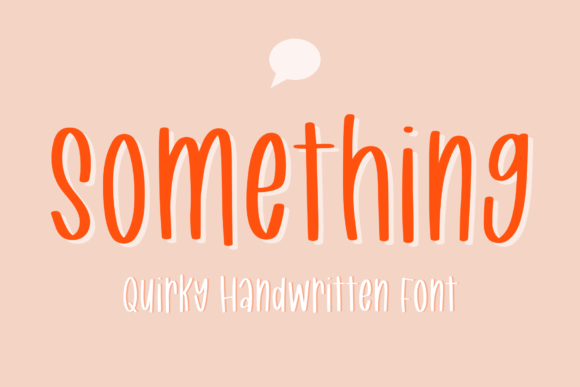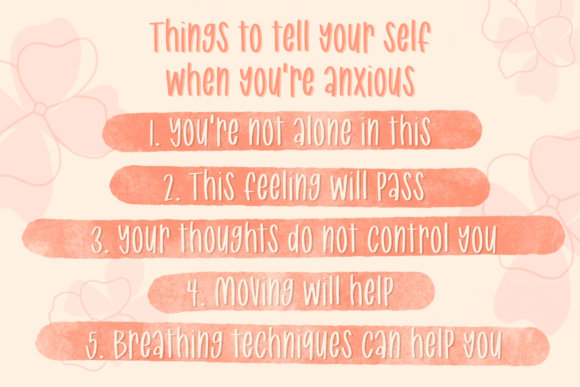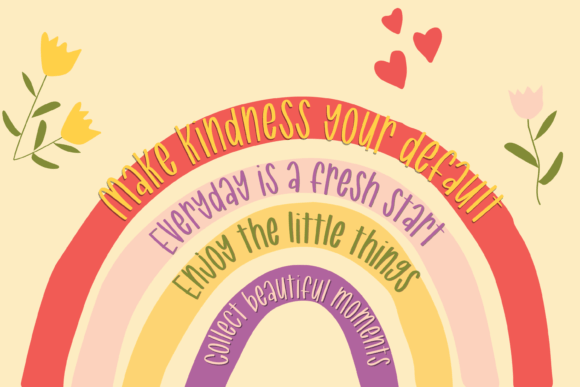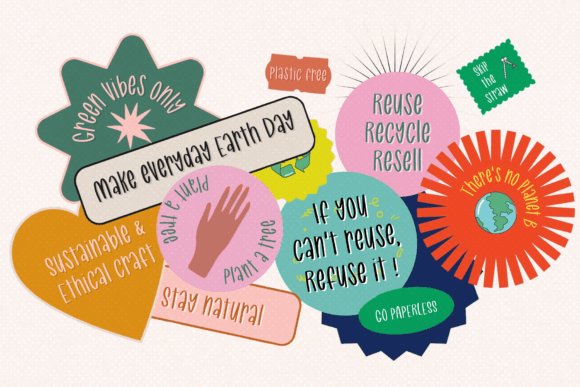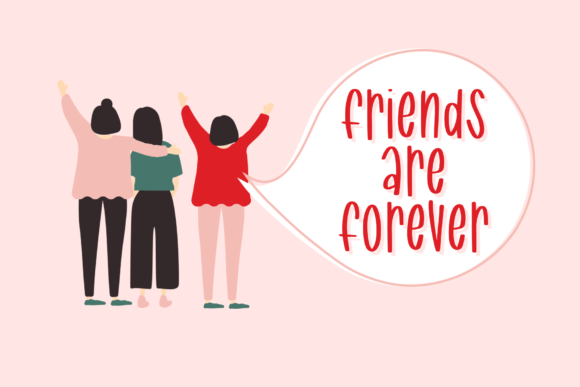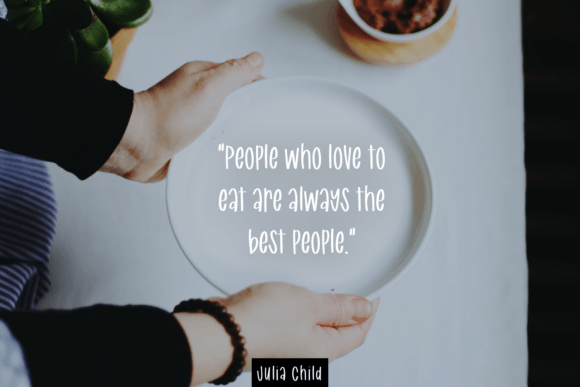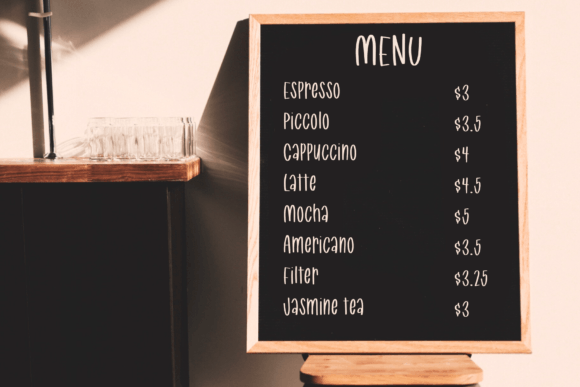
Something Font
About Something Font
“Something” is a delightful, quirky, and naturally handwritten font that adds a playful touch to a variety of creative projects. This versatile font can be seamlessly integrated into numerous design endeavors, including logos, branding, invitations, greeting cards, blog posts, and much more.
The quirky and fun nature of “Something” makes it a perfect choice for adding a touch of whimsy to your brand identity. Whether you’re working on a logo or branding materials, this font can infuse a lighthearted and approachable vibe, helping your brand stand out with a unique personality.
For invitations and greeting cards, “Something” brings a natural and authentic feel, creating a warm and inviting atmosphere for special occasions. The handwritten style of the font adds a personal touch, making your messages more engaging and heartfelt.
In the realm of blog posts and digital content, “Something” adds a playful and casual aesthetic, making your written material visually interesting and easygoing. Its natural handwriting conveys a sense of authenticity, contributing to a more relatable and friendly tone.
The versatility of “Something” extends to a wide range of creative projects, providing you with the flexibility to use it in various contexts. Its quirky and fun characteristics make it an excellent choice for any project that could benefit from a touch of light-heartedness and charm.
In summary, “Something” is not just a font; it’s a creative tool that brings a sense of fun and spontaneity to your design projects. Whether you’re crafting a logo, designing invitations, or creating blog content, this font adds a unique and delightful flair to your work.